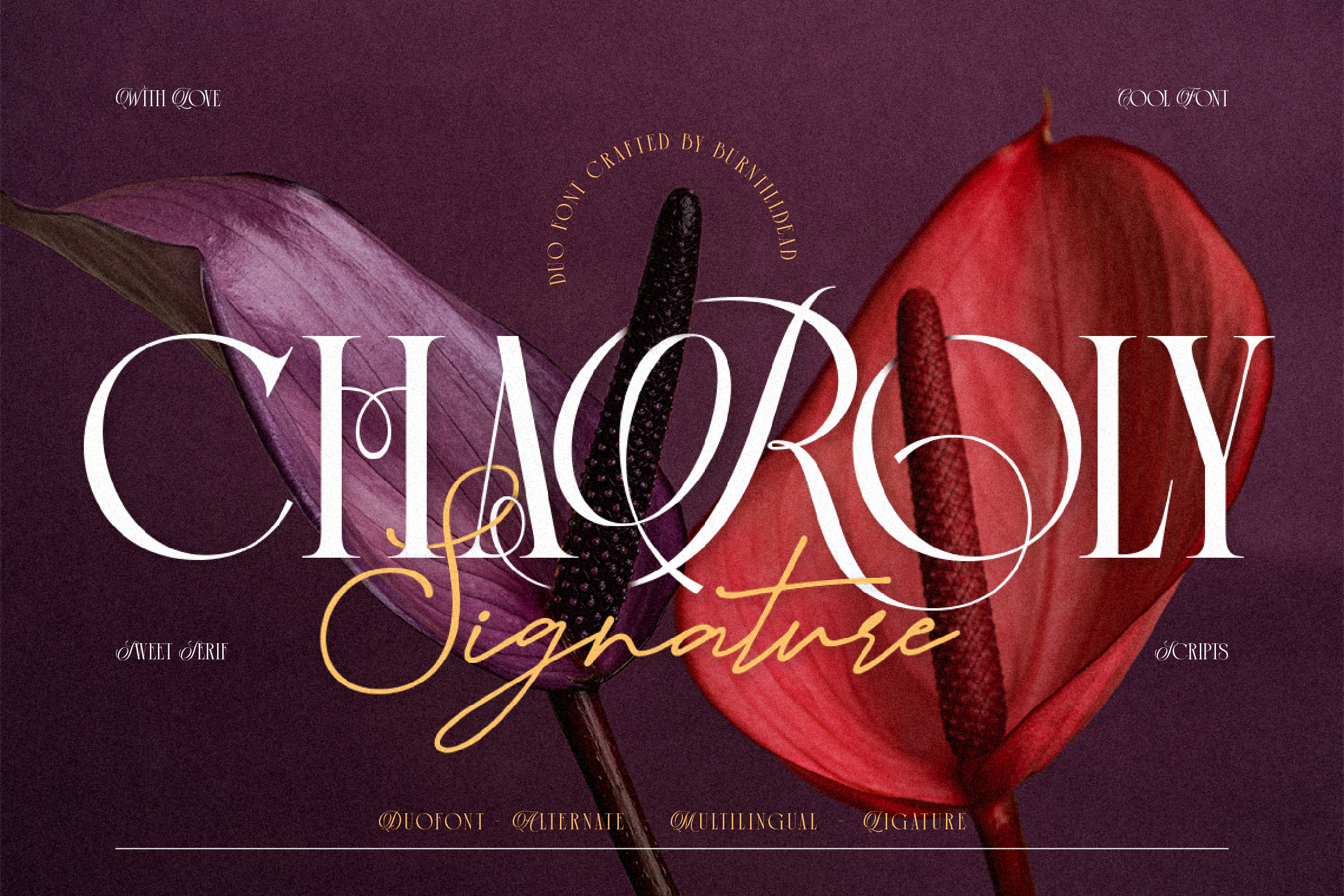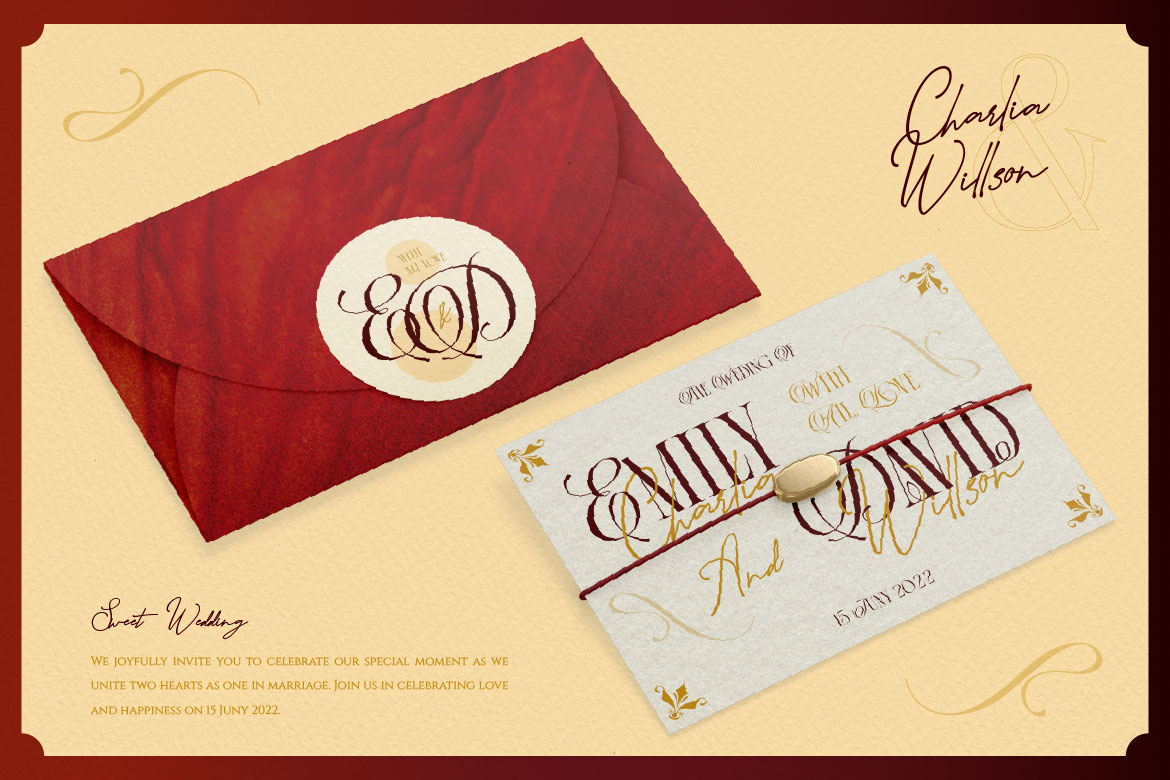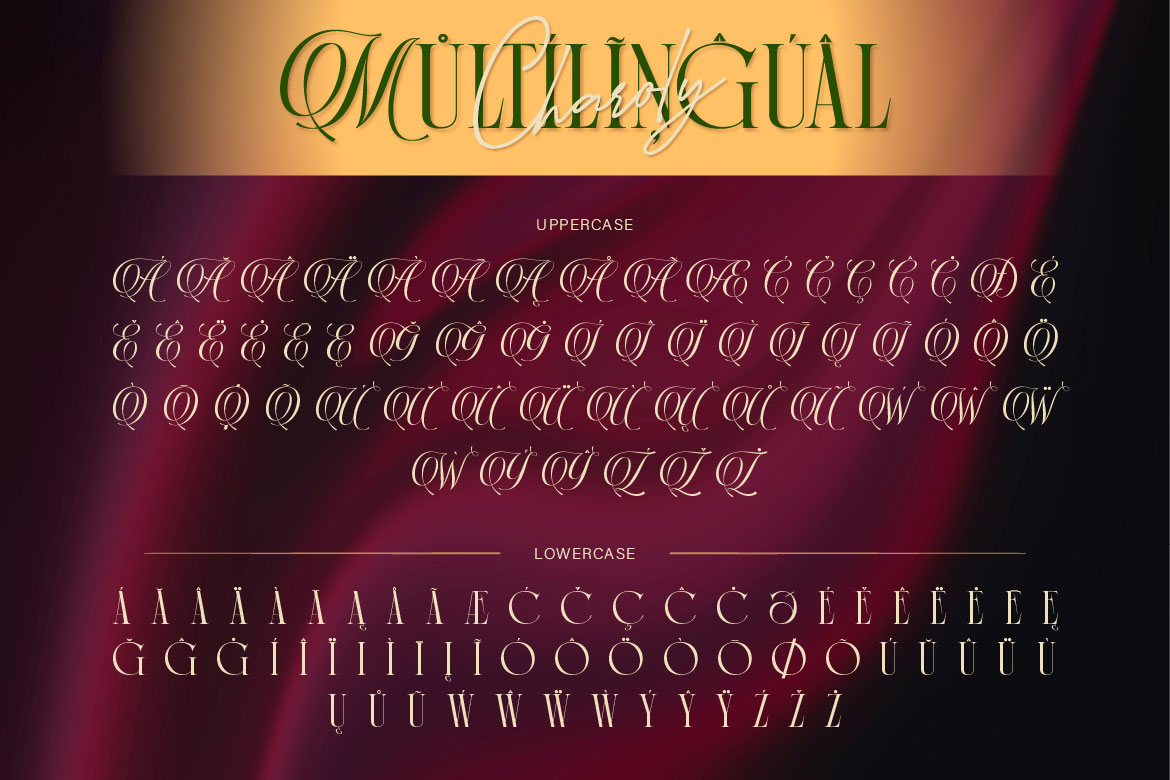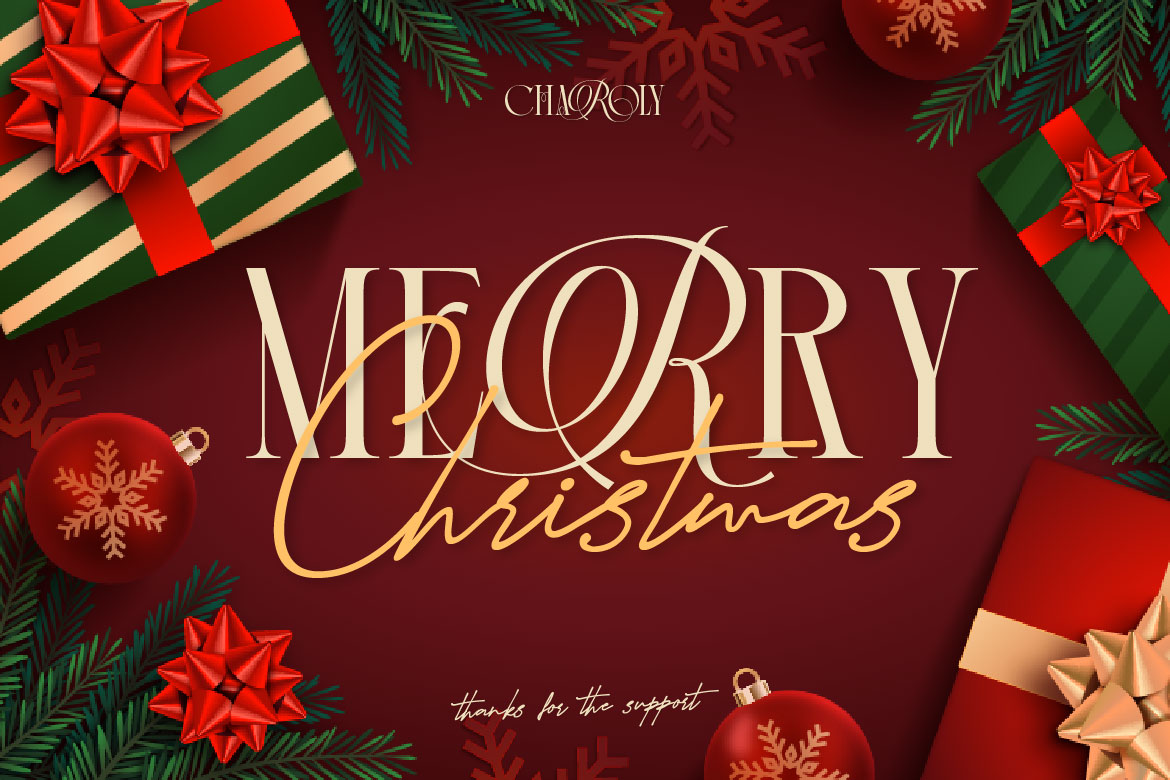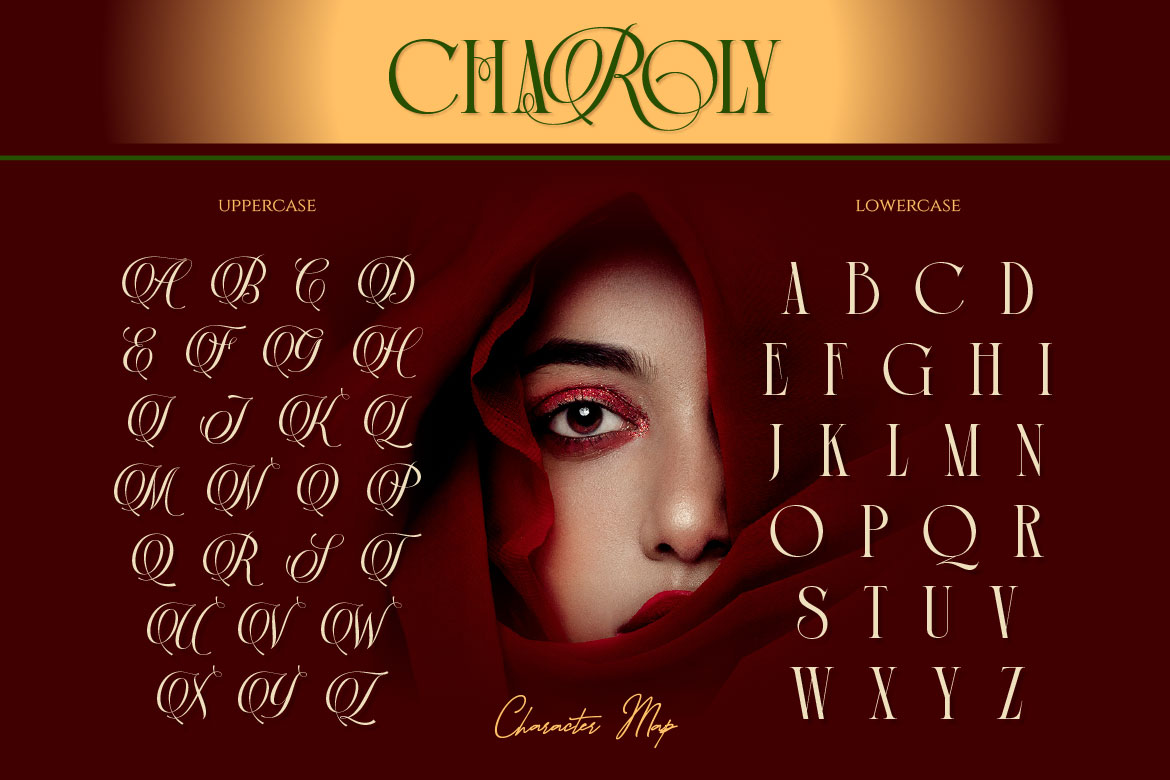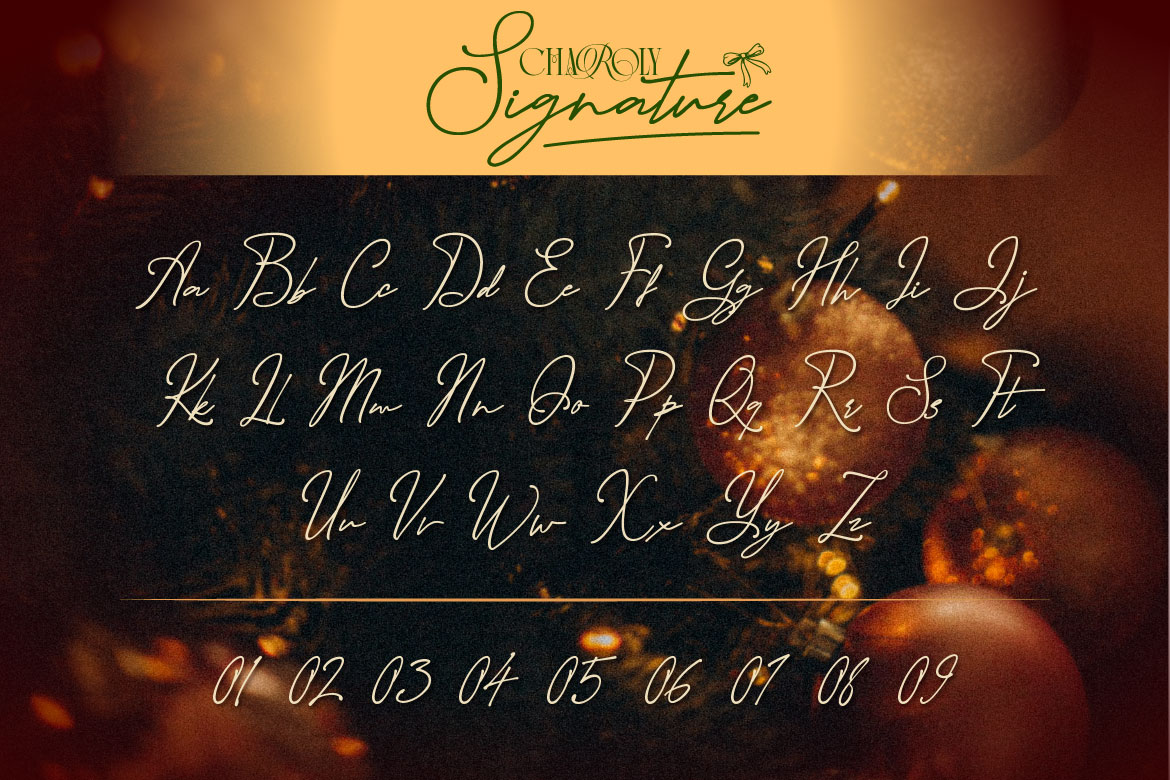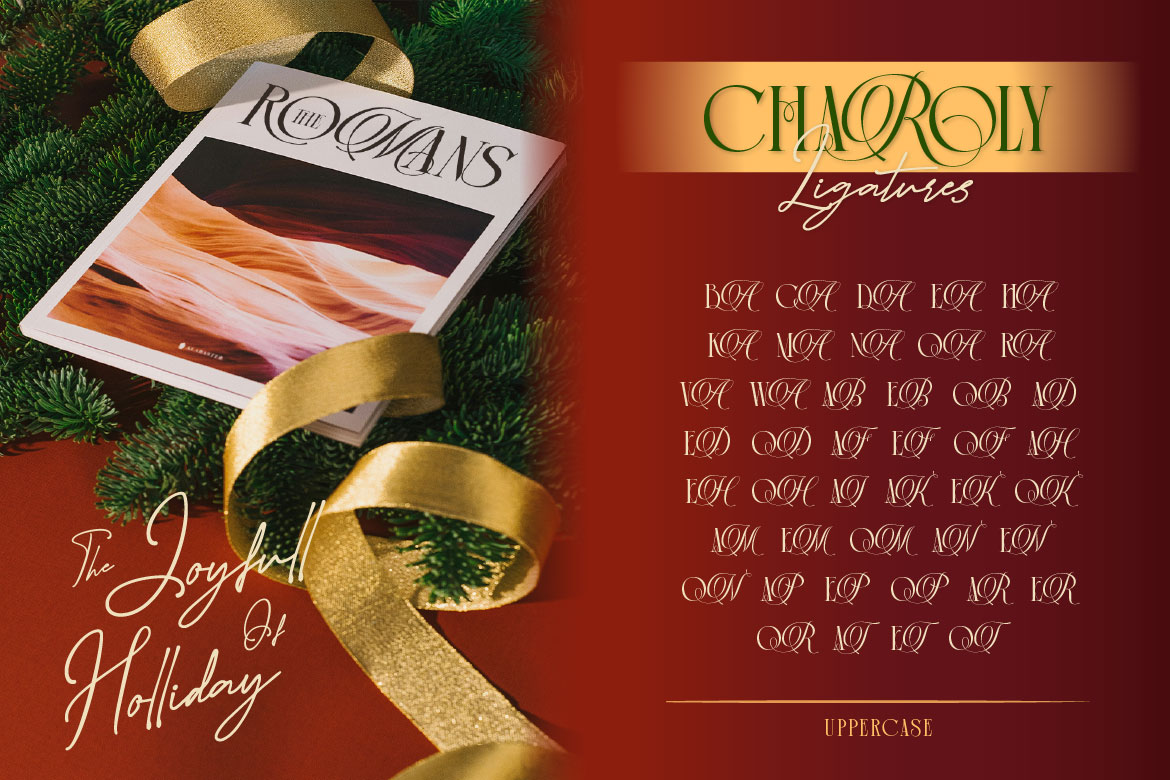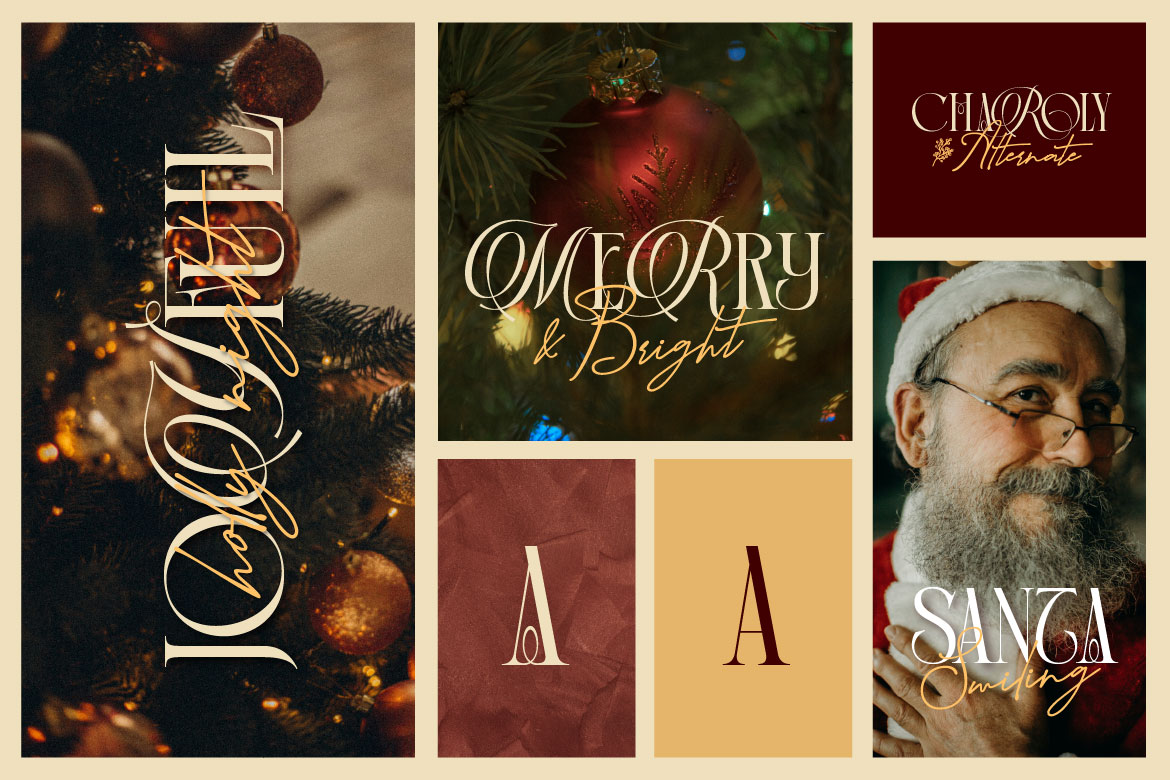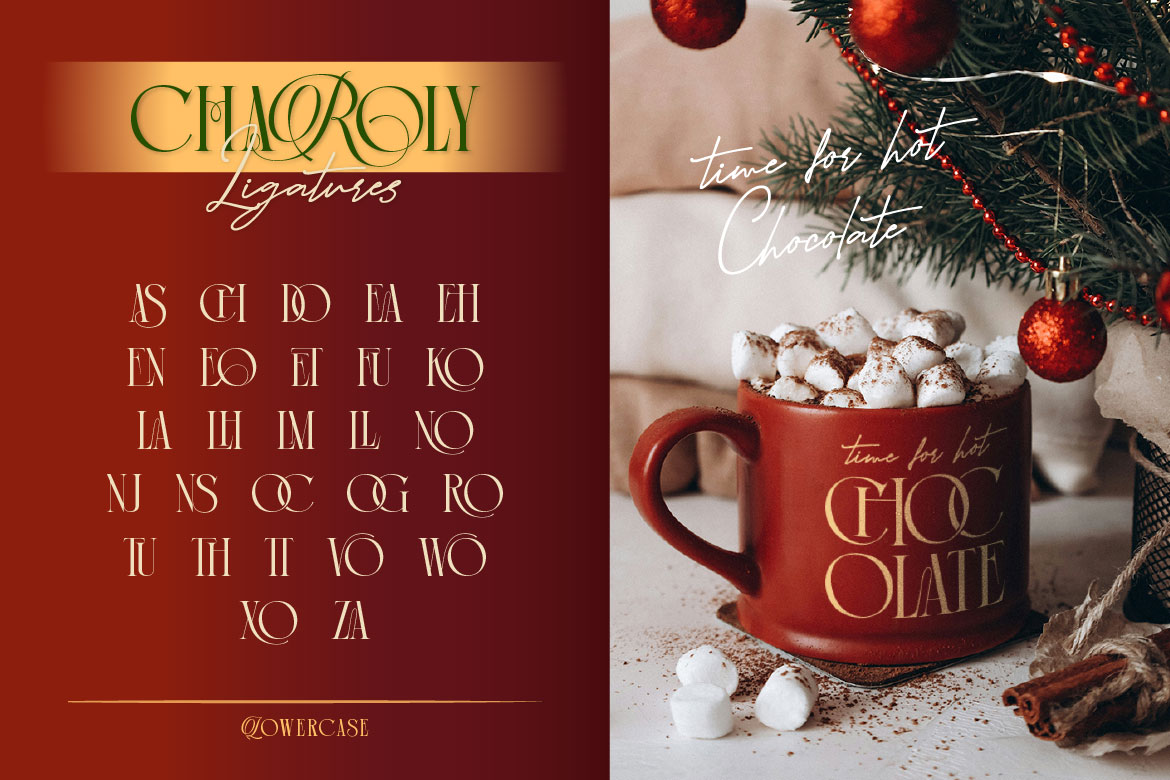
- Classic - Elegant
- Charoly Signature
Charoly
Signature
Introducing, Charoly Signature, a harmonious blend of classic elegant serif with charm of script. This duo font creating stunning combination that works effortlessly across both print and digital design project. Whether you’re designing for Christmas, weddings or any special occasion. Ideal for invitation, greeting cards, branding and many more.
- Charoly Signature Characters Map